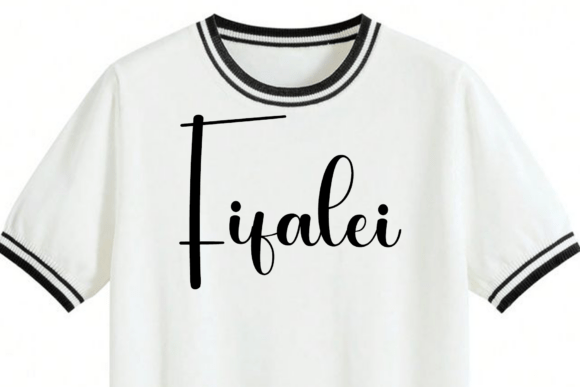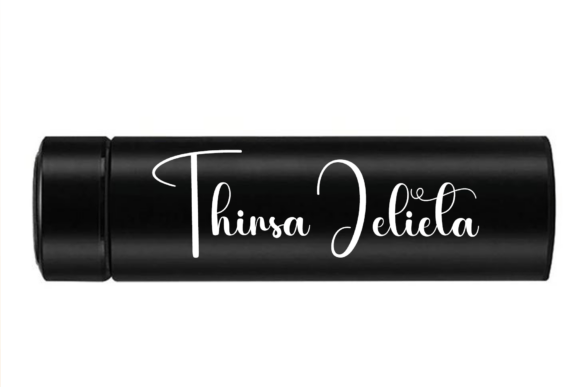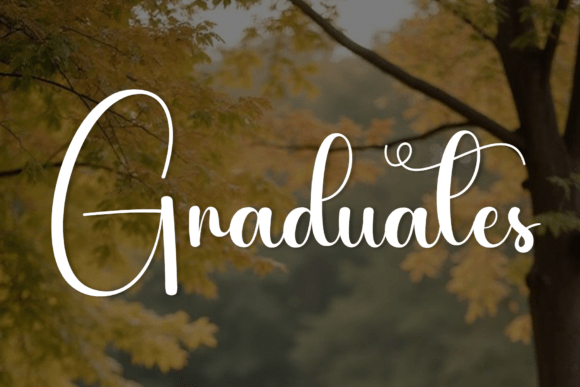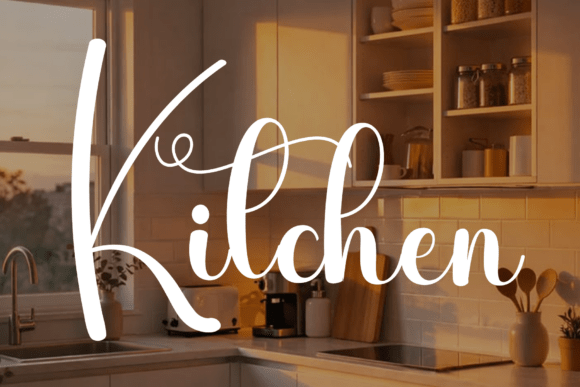
Diligents Font: Elevate Your Designs with a Timeless Handwritten Style
In the world of typography, a font can make or break a design. For designers, crafters, and anyone looking to create visually stunning content, the right font is essential. This is where Diligents Font comes into play – a lovely and timeless handwritten font that can elevate your designs to new heights. In this article, we’ll explore the features, benefits, and uses of Diligents Font, and why it’s the perfect choice for creating eye-catching logos, branding, and quotes.
The Unique Charm of Diligents Font
Diligents Font boasts a unique and beautiful touch, setting it apart from other fonts. Every letter is carefully crafted to bring a sense of elegance and sophistication to your designs. The font’s handwritten style gives it a personal and approachable feel, making it perfect for a wide range of applications, from logos and branding to quotes and social media graphics.
Features of Diligents Font
- Timeless Design: Diligents Font has a classic, timeless quality that ensures your designs will remain stylish and relevant for years to come.
- Unique Letterforms: Each letter has a distinct character, adding a touch of personality to your designs.
- Handwritten Style: The font’s handwritten style gives it a warm, inviting feel that’s perfect for creating emotional connections with your audience.
- Elegant and Sophisticated: Diligents Font exudes elegance and sophistication, making it ideal for high-end branding and designs.
Why Choose Diligents Font?
So, why should you choose Diligents Font for your design projects? Here are just a few compelling reasons:
- Eye-Catching Logos: With Diligents Font, you can create stunning logos that capture attention and leave a lasting impression.
- Branding and Identity: The font’s unique style helps establish a strong brand identity that sets you apart from the competition.
- Quotes and Typography: Diligents Font is perfect for creating beautiful quotes, typographic posters, and social media graphics that resonate with your audience.
- Easy to Read: The font’s clear and legible design ensures that your message is conveyed effectively, making it easy for readers to engage with your content.
Tips for Using Diligents Font
To get the most out of Diligents Font, here are some tips to keep in mind:
- Experiment with Colors: Pair Diligents Font with a range of colors to create visually stunning designs that pop.
- Play with Sizes: Use different font sizes to create visual hierarchy and add emphasis to your designs.
- Add Texture and Patterns: Combine Diligents Font with textures and patterns to add depth and interest to your designs.
Who Can Benefit from Diligents Font?
Diligents Font is perfect for a wide range of designers, crafters, and businesses, including:
- Graphic Designers: Add a touch of elegance and sophistication to your designs with Diligents Font.
- Crafters and Artists: Use Diligents Font to create beautiful, handmade-style designs that showcase your creativity.
- Small Businesses: Establish a strong brand identity with Diligents Font and stand out from the competition.
- Social Media Influencers: Create stunning social media graphics that resonate with your audience using Diligents Font.
In conclusion, Diligents Font is a versatile and beautiful handwritten font that’s perfect for designers, crafters, and businesses looking to elevate their designs. With its unique letterforms, elegant style, and timeless quality, Diligents Font is the ideal choice for creating eye-catching logos, branding, and quotes. Whether you’re a seasoned designer or just starting out, Diligents Font is sure to become a staple in your design toolkit.